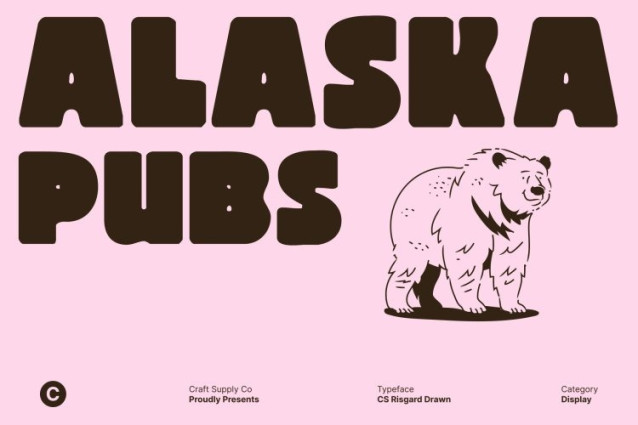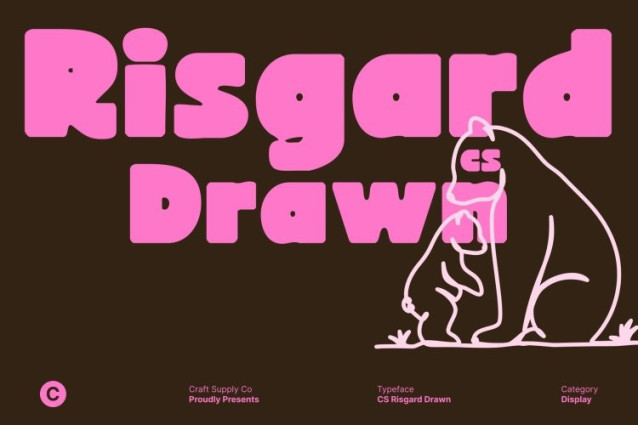
CS Risgard Drawn Font
CS Risgard Drawn Font This is a modern sans serif font defined by bold, clean, and confident forms, enhanced by a distinctive drawn effect. Each letter is crafted with precision while retaining subtle handcrafted imperfections, creating a strong sense of balance, impact, and contemporary visual power.
Funky Touch with Hand-Drawn Personality
What sets this font apart is its funky and expressive character, amplified by the drawn texture. Slight irregularities and organic details introduce movement and personality, transforming structured geometry into something playful, lively, and visually engaging. This balance of control and spontaneity gives the font a unique creative voice.
Unique Texture for Bold Branding
The drawn effect adds a tactile, textured quality that brings individuality to logos, posters, packaging, and modern branding. While maintaining excellent legibility in both print and digital use, the font’s hand-drawn finish ensures every word feels distinctive and full of character.
Perfect for Creative and Energetic Designs
From brand names and advertisements to event titles and editorial layouts, this font adapts effortlessly across styles. Combining modern strength, funky charm, and a handcrafted edge, This is ideal for designers seeking bold, memorable typography with expressive texture and shape.